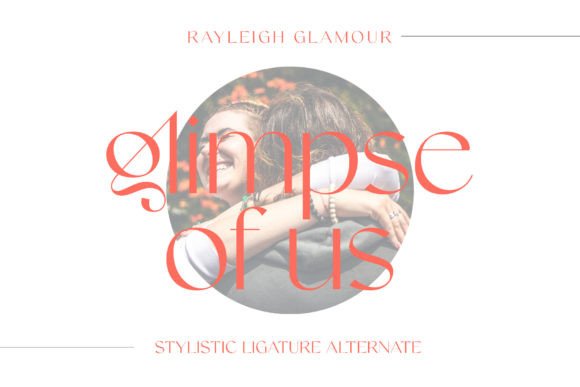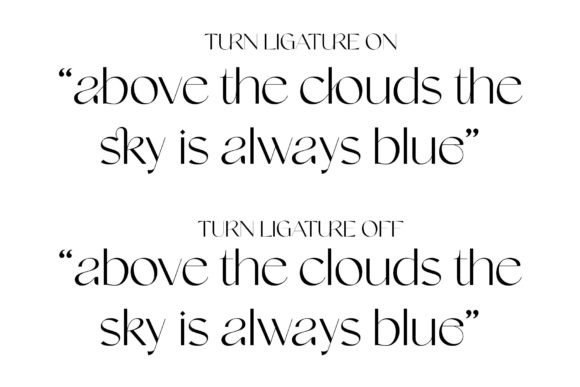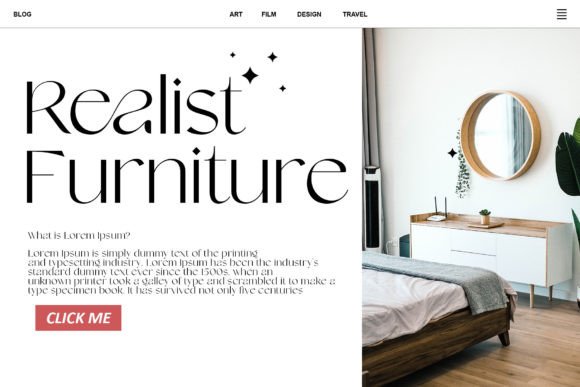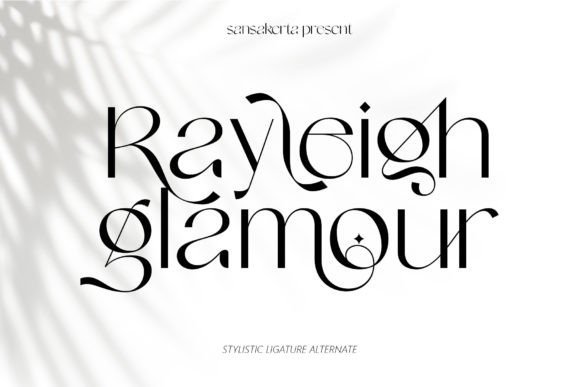
Introduction to Rayleigh Glamour Font
Rayleigh Glamour is a stylish and elegant display font.
Fashionable yet still sophisticated, this font will look gorgeous in a wide variety of contexts .
Key Features of Rayleigh Glamour Font
Why Choose Rayleigh Glamour Font?
Rayleigh Glamour Font offers exceptional quality and versatility, making it a valuable addition to your design toolkit. Whether you’re creating for personal projects or commercial use, Rayleigh Glamour Font delivers professional results.